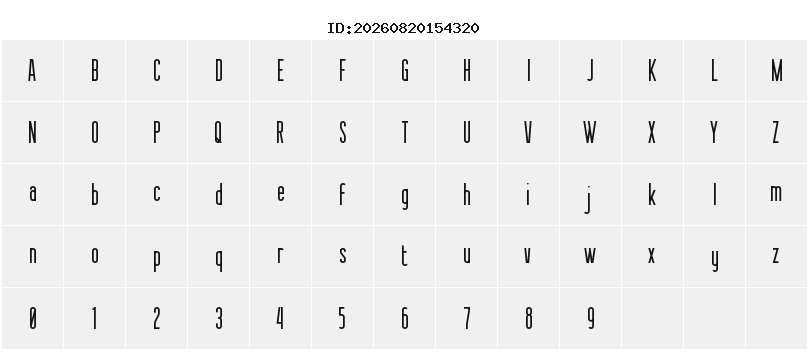
Sessions Preview
• Font Name: Sessions
• Full Font Name: Sessions
• Version: Version 1.00 June 19, 2012, initial release
About Sessions.ttf
Sessions.ttf is a modern, elegant sans-serif font designed for ultimate readability and visual harmony. Perfect for branding, headlines, web design, and print materials.